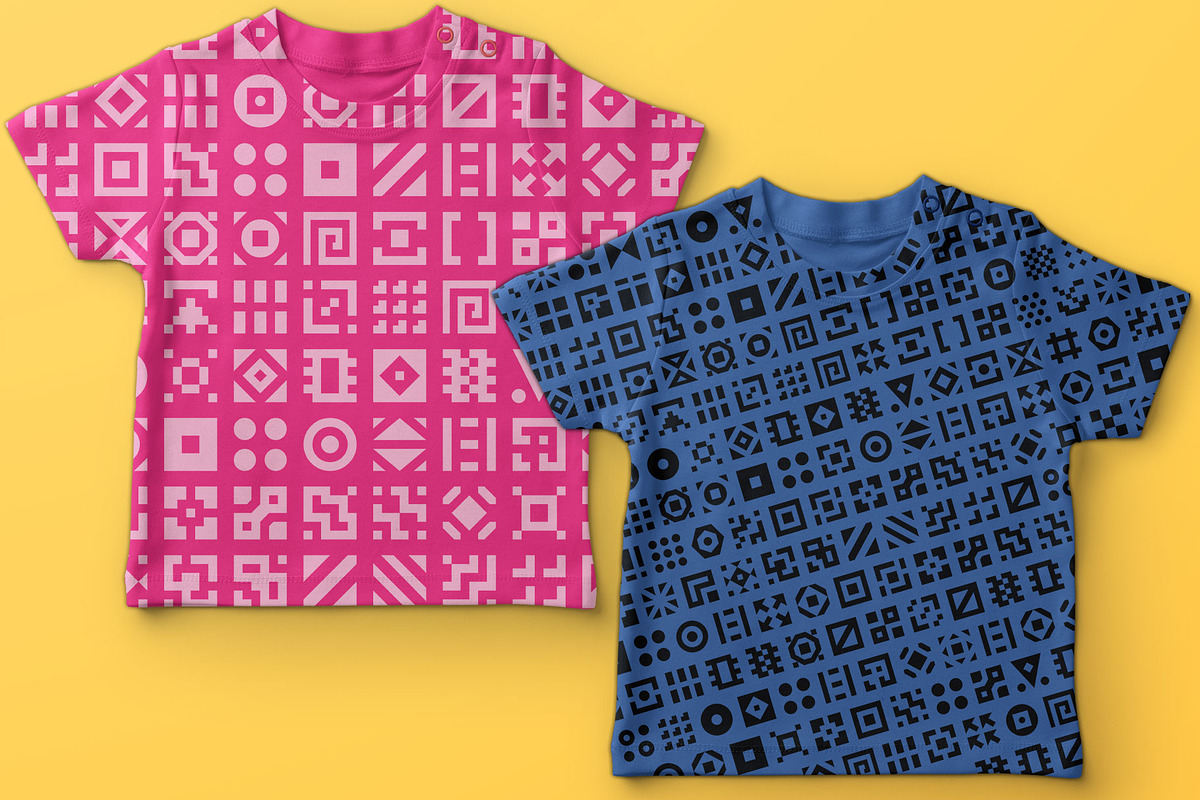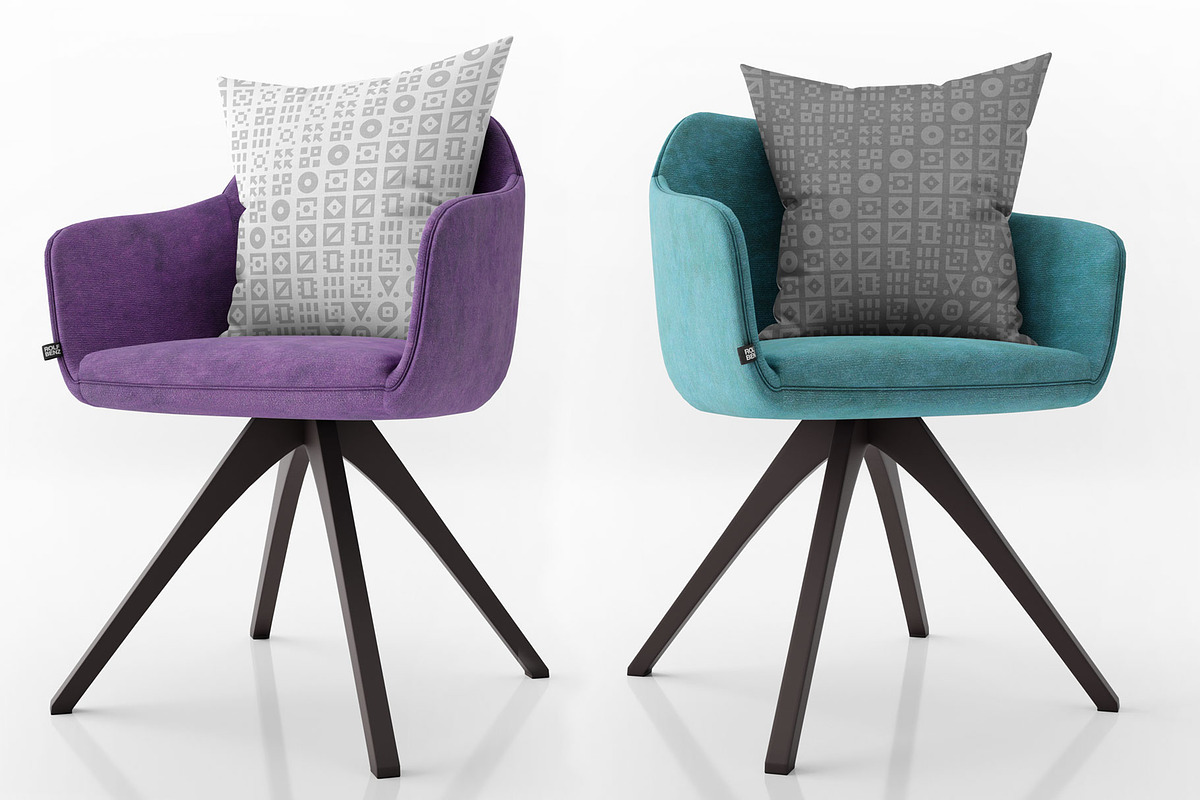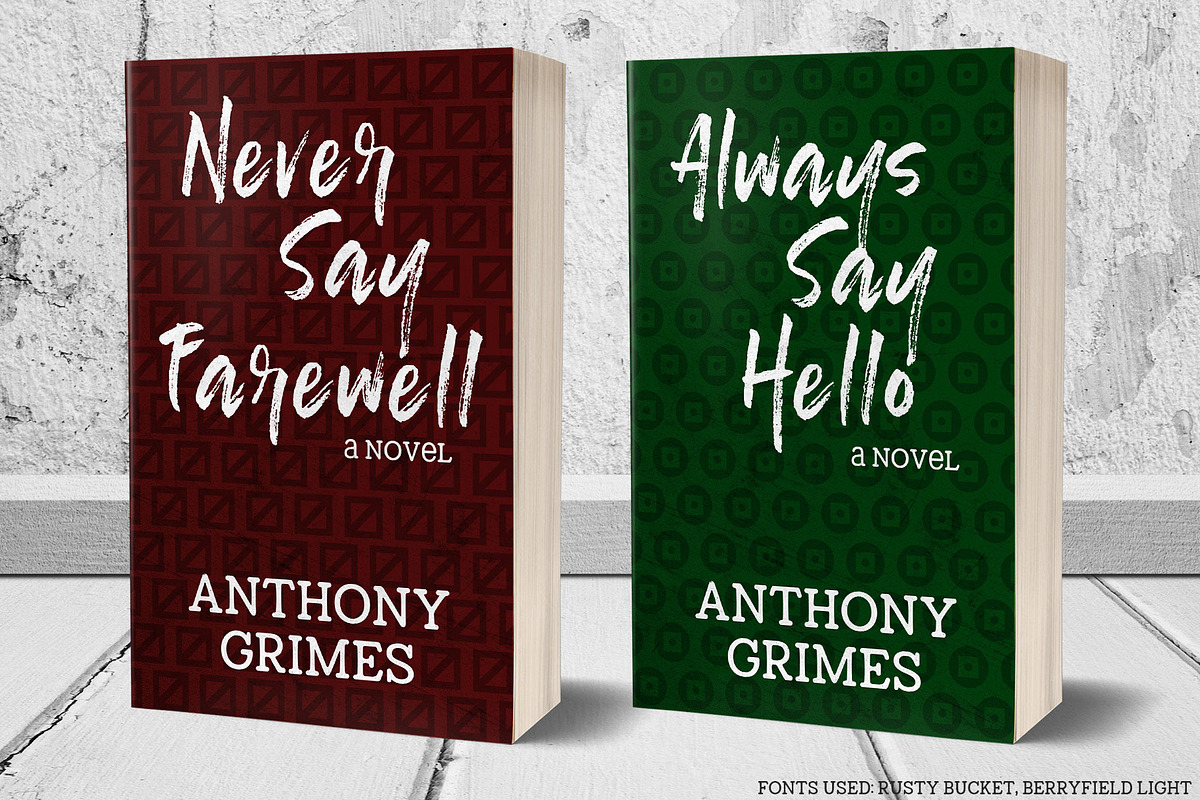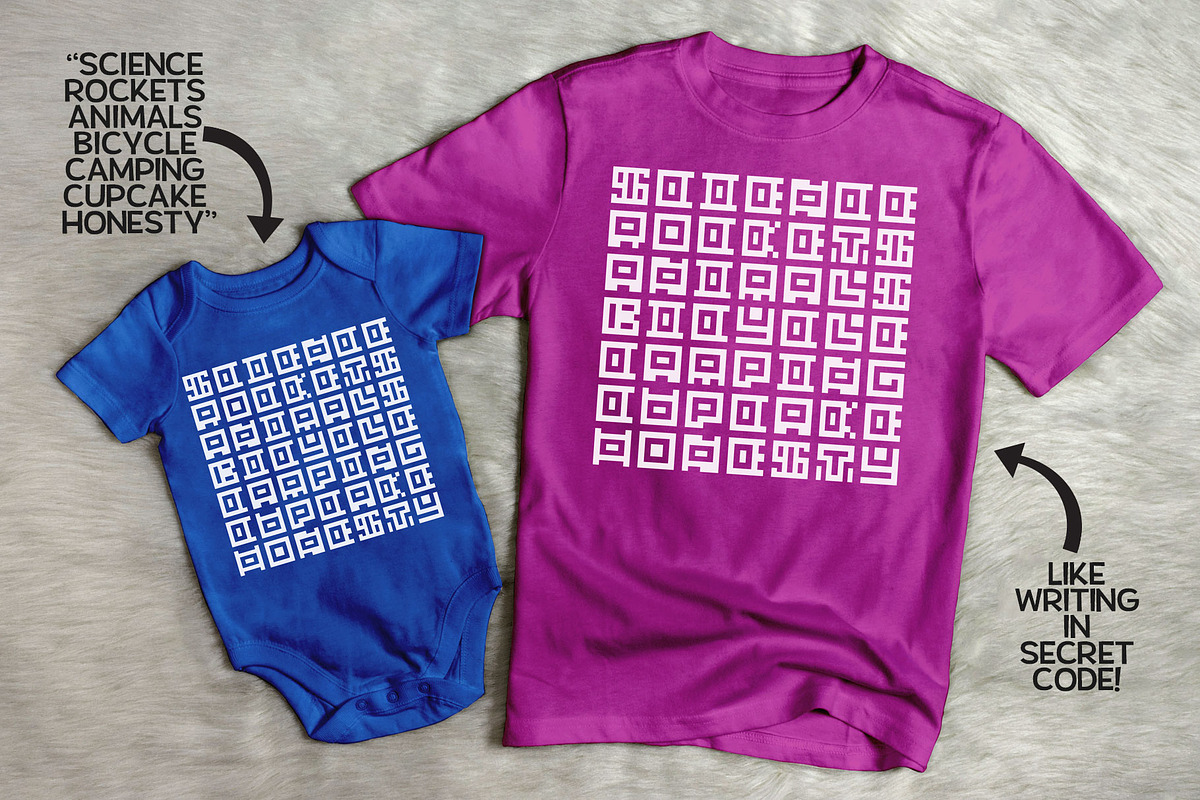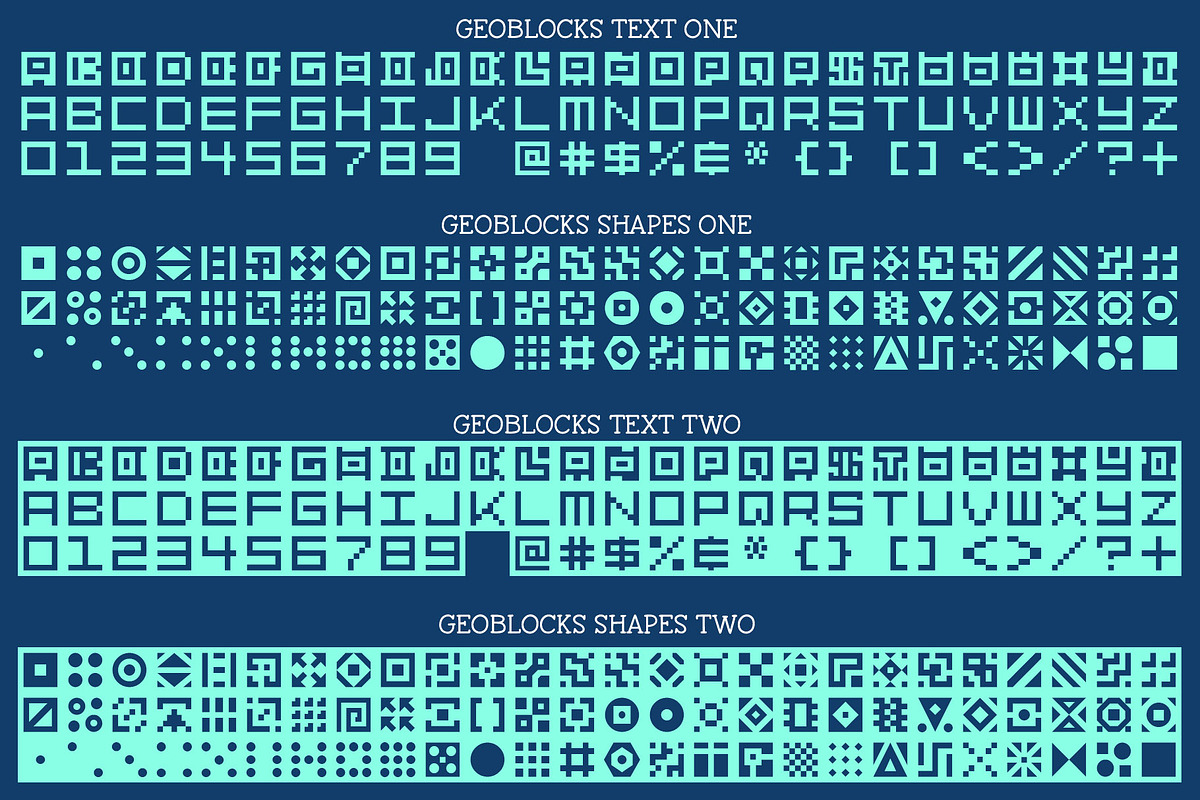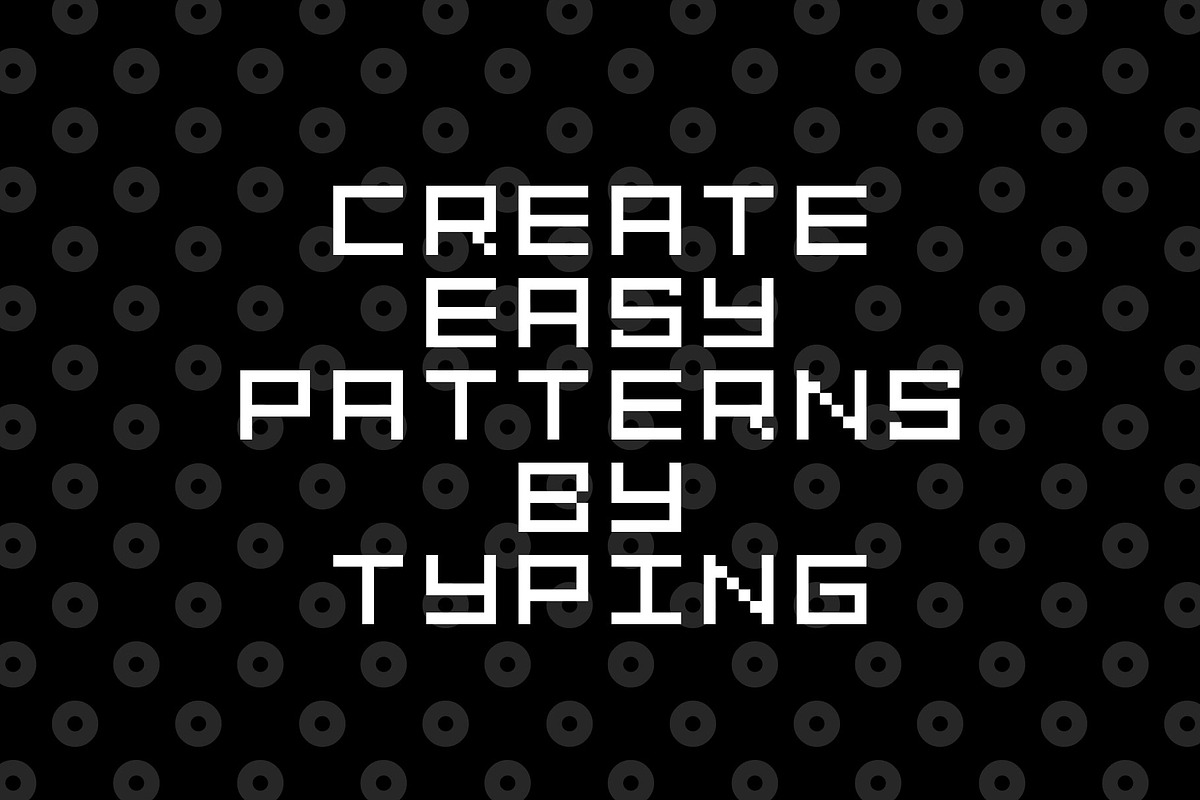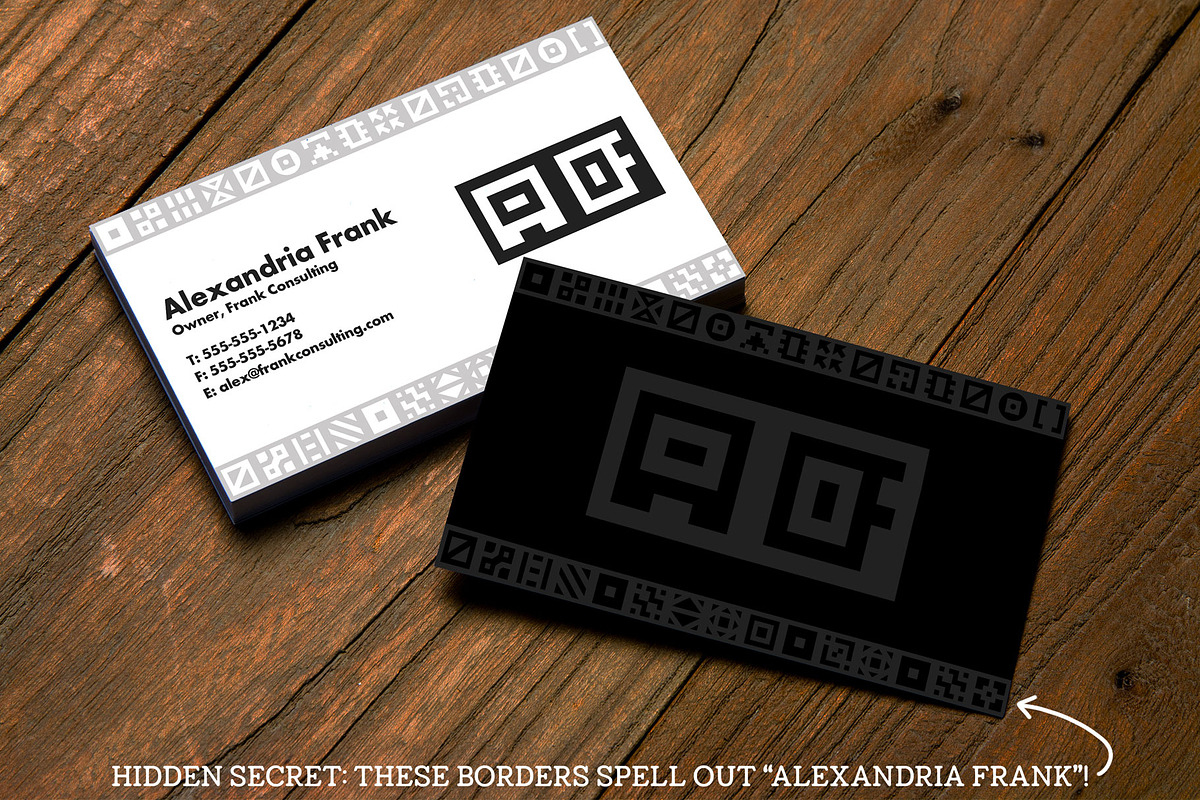
GeoBlocks-a geometric font set!
And now, for something completely different from me! GeoBlocks is a family of four fonts - two with square alphabet, number, and punctuation characters with a pixel-style look, and two with decorative squares full of geometric shapes. Style one has no background, while style two has a filled square background.
You can create an infinite number of patterns from the shapes - even by typing out words! For the alphabet fonts, the lowercase is a simpler, easy-to-read style, while the uppercase letters are stylized, so they can function as a secret code!
Making a pattern is easy - just select one of the fonts and start typing! You can use the blocks in a regular repeating pattern, or you can pound on the keyboard for a cool random look. Or something in between! The text fonts also include a limited number of lowercase accented characters for language support.
Check out the promotional images for ideas about how the blocks can be used, along with some guides on how to create simpler repeating patterns.